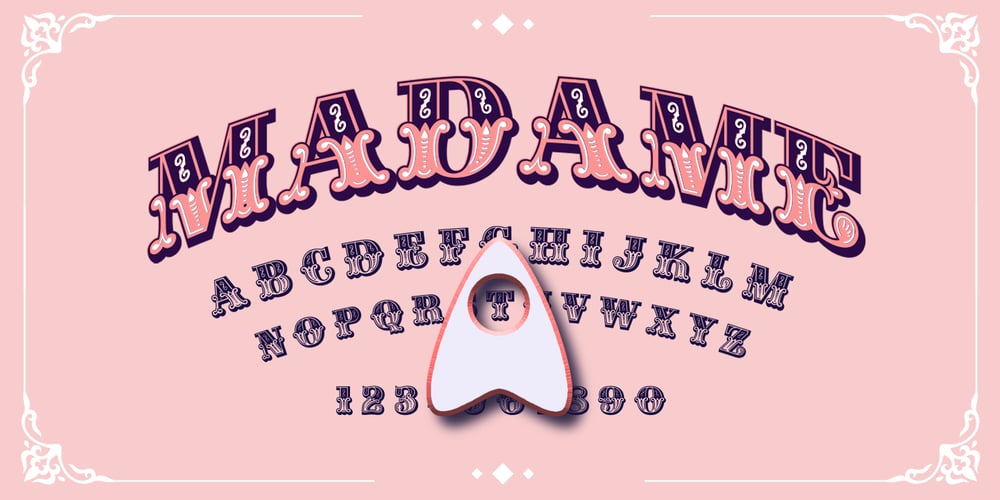
Madame Font Family was designed by Joseph Gillé and published by Linotype. Madame contains 1 styles and family package options. The font, Madame, first appeared in a sample with similar fonts, presented by the Fonderie Typographique Française in the 19th century. The font consists of three cuts, letters, accents and numericals. The flamboyant Madame is meant for titles and headlines, emphasis in text or as initials. It combines well with both serif and sans serif fonts, but should be used sparsely to maximize the advantages of its ornate forms.